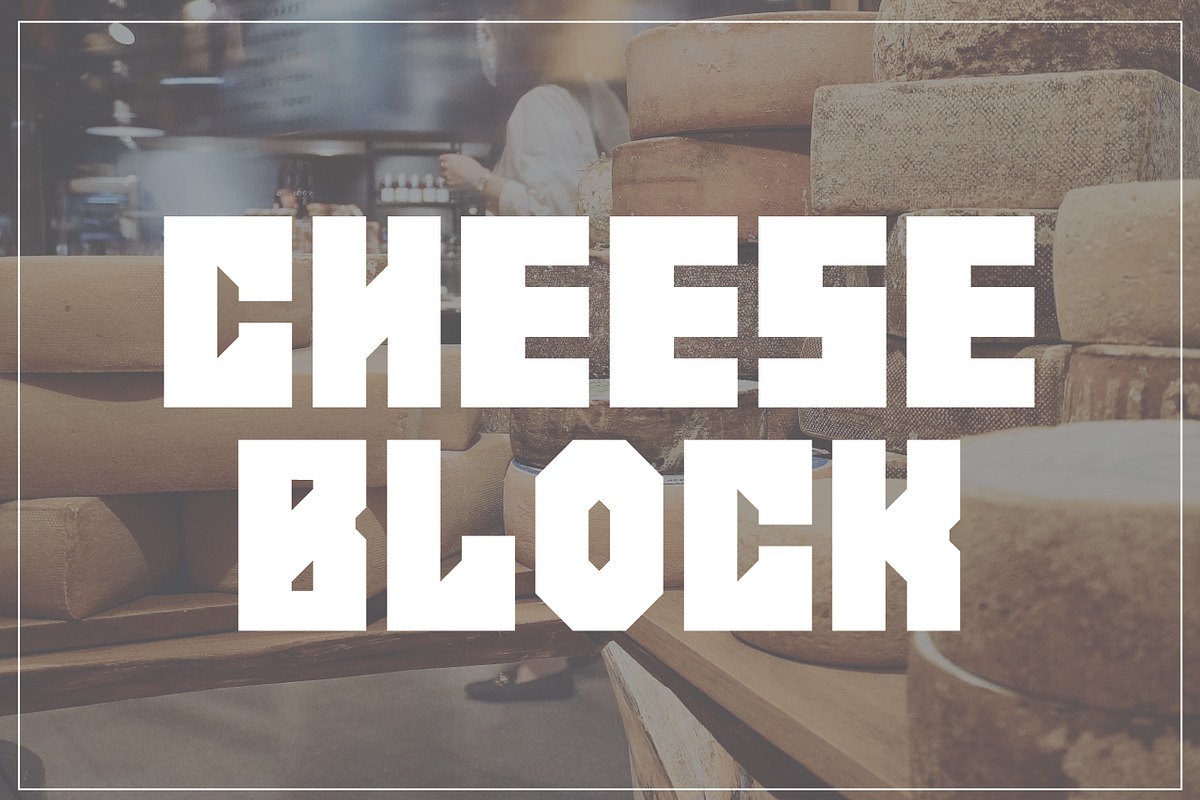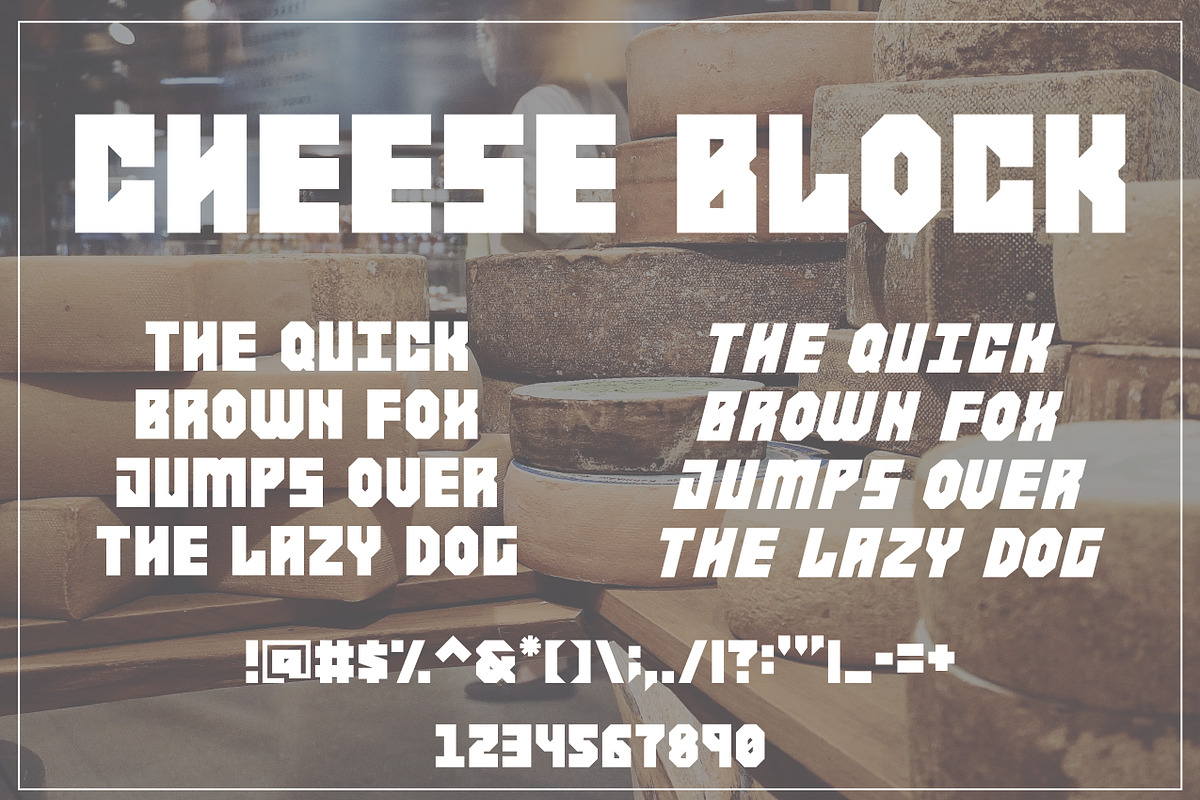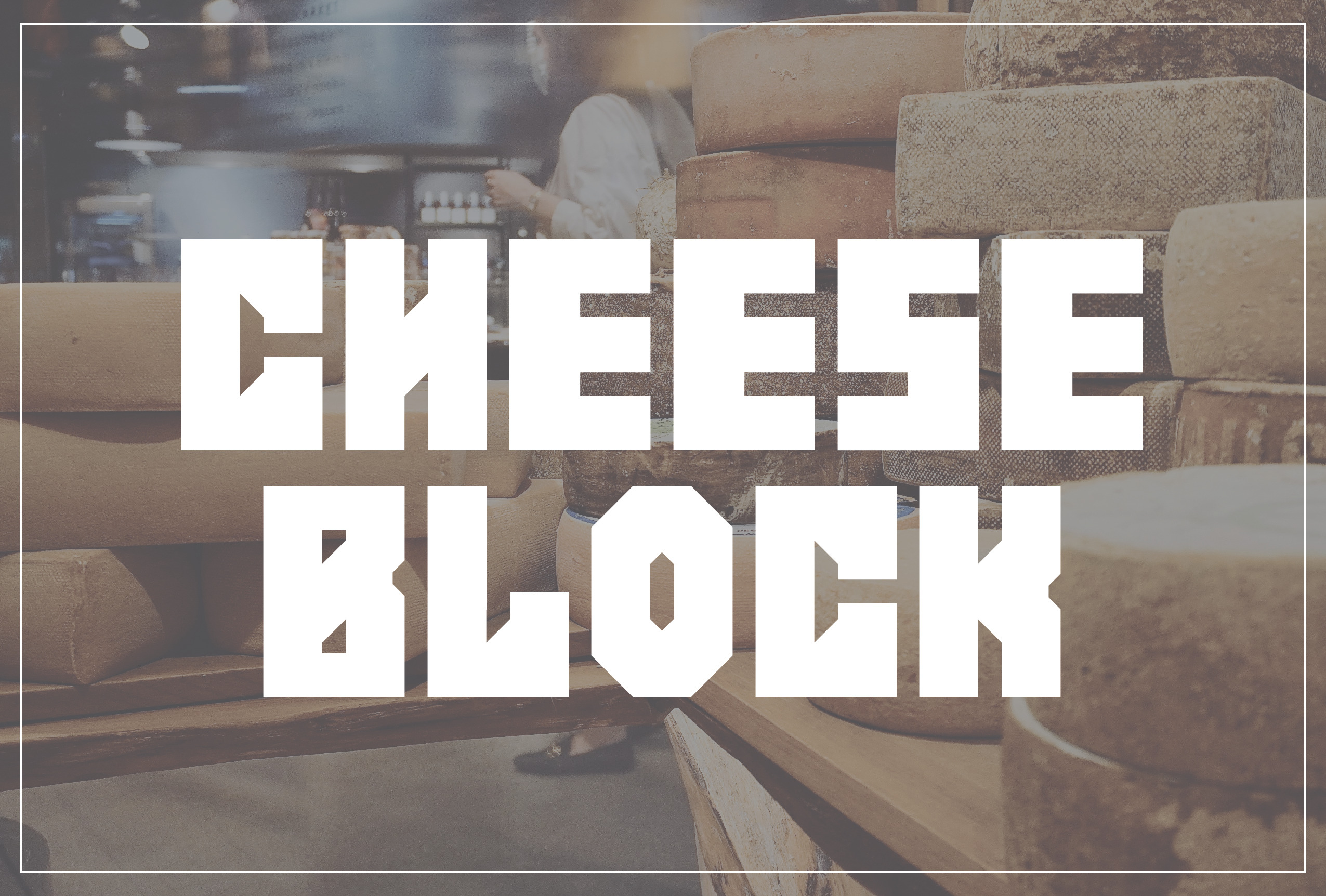
Cheese Block Bold Typeface
This typeface comes in two styles, regular and italic, and includes common symbols and numbers. All letters are capital, with lower case options sitting slightly shorter than than upper case counterparts.